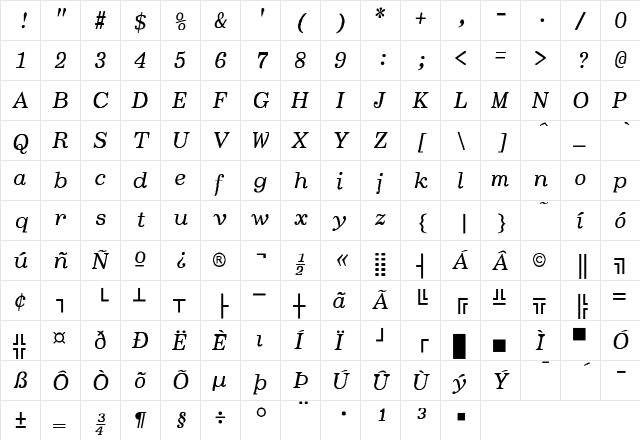
Lettermann SemiBld-Ital Regular
Design Context for Lettermann SemiBld-Ital Typeface
Lettermann SemiBld-Ital is a composed and adaptable typeface that performs quietly and consistently across a wide range of design contexts.